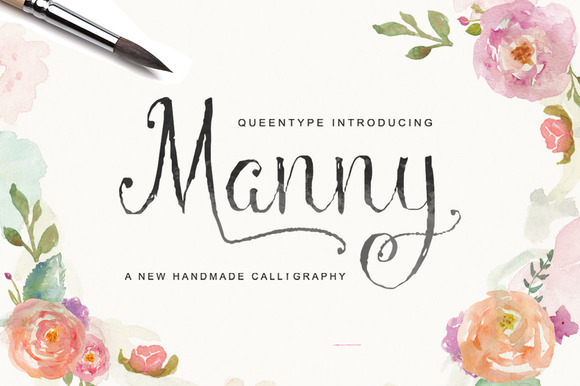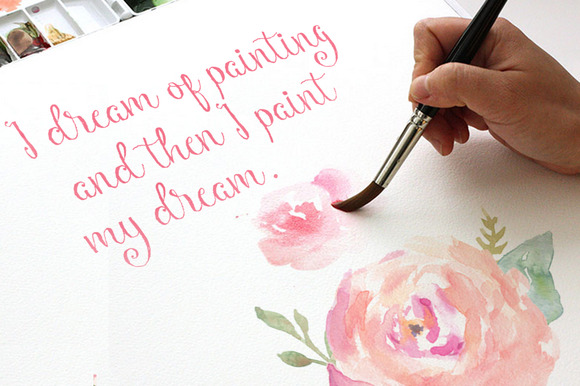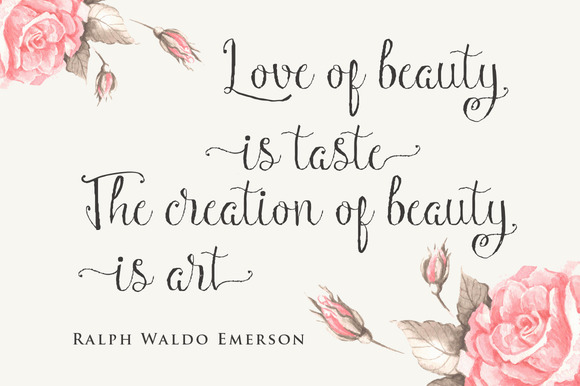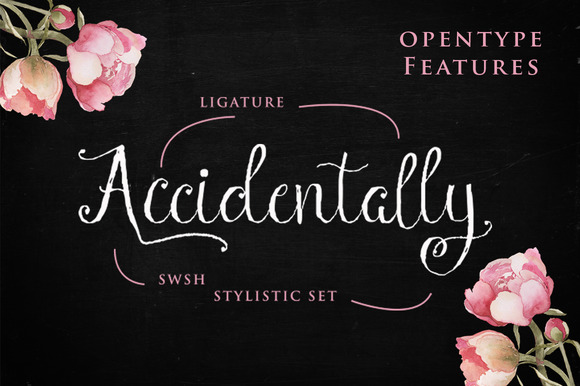
HomeScript FontsManny Script Font Script Fonts Manny Script Font FacebookXPinterestWhatsApp Manny Script Font Poster 2 Manny Script Font Poster 3 Manny Script Font Poster 4 Manny Script Font Poster 5 About Manny Script Font Manny Script is a beautiful handmade script with a natural look. DOWNLOAD NOW People also explored YWFT Merry Strong Table Font Love Story Font Banana Custard Font Pearl Stacy Font Chibi Font Wonderful Feather Font Robertto Font Sandwich Font 316 0 TagsManny Script Font Previous articleMellanie Typeface FontNext articleMagicstone Font LEAVE A REPLY Cancel reply Comment: Please enter your comment! Name:* Please enter your name here Email:* You have entered an incorrect email address! Please enter your email address here Website: Save my name, email, and website in this browser for the next time I comment. Personal Use Free Bamboomoe Personal Use Free Read more about this font Maharany Personal Use Free Read more about this font Bellarin Personal Use Free Read more about this font Mowgli Personal Use Free Read more about this font BLOG Best Fonts for T-Shirt Design – Top 2025 Picks In 2025, t-shirt design has become more than just fashion—it's a form of self-expression. Whether you're... Free Fonts Risk: Why Free Fonts Can Be Dangerous for Designers Free vs Paid Fonts: Why Investing in Premium Fonts Is Worth It Top 10 Handwritten Fonts That Elevate Your Designs